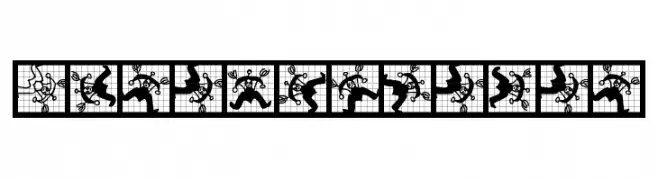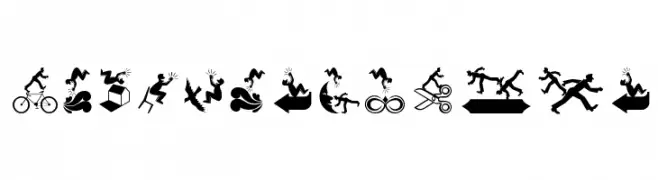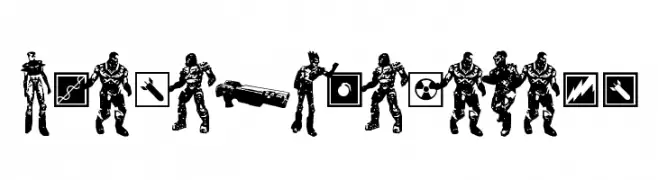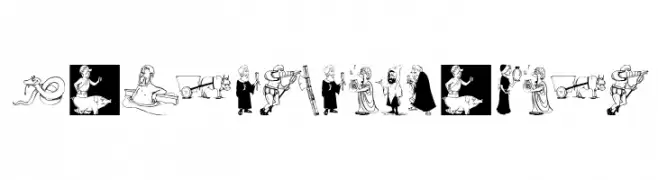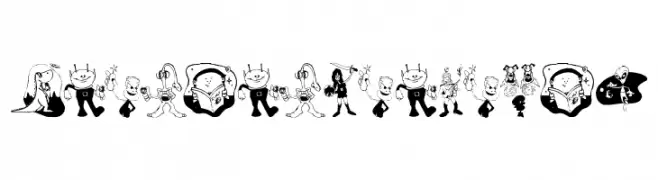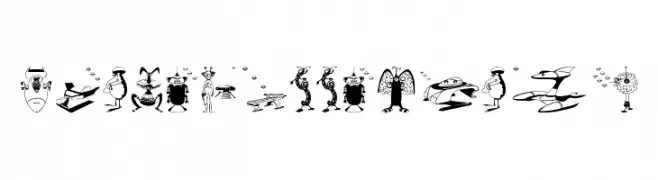
Energetic pictogram font with action-themed icons.
Comic-style, alien-themed decorative font with illustrated glyphs.
A pictorial, military-themed decorative font with each character as a unique illustrated figure.
A detailed, game-themed dingbat font with character and weapon silhouettes.
Playful dingbat font of space-themed cartoon characters and objects.
A decorative font with Roman-themed illustrations, ideal for creative projects.
Illustrative dingbat font with gardening and outdoor motifs.
Illustrative, playful font with child-themed scenes for each character.
A decorative dingbat font with jester-themed illustrations.
Cartoonish sci-fi themed display font with illustrated characters.